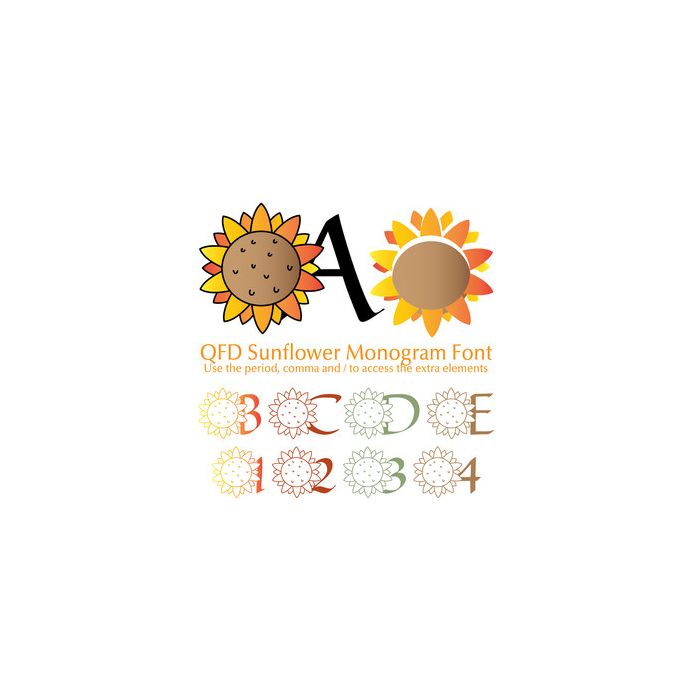
Here’s a perfect summertime font. Mix and match this item with the other Quietfire Sunflower designs! Combine this fun font with the other QFD Monogram fonts! See our detailed monograms tutorial by clicking the Instructions button. Use the period, comma and / to access the extra elements.